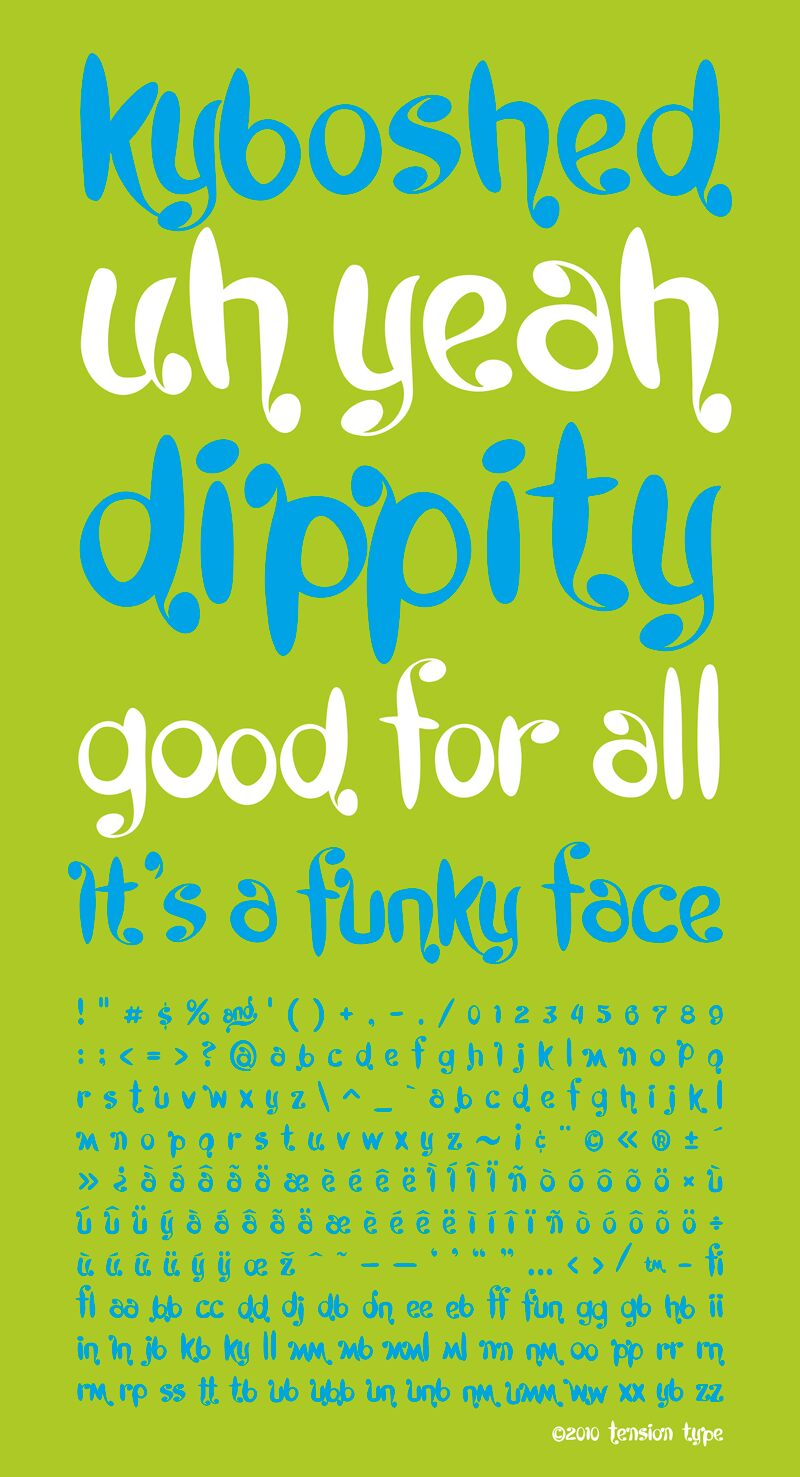
Kyboshed by Michael Tension is a free brush display font with exaggerated, ink-like forms. Its swelling curves, sharp tapered strokes, and bouncing proportions make the lettering feel improvised yet deliberate.
The lively brush shapes echo hand-drawn cartoons and suit illustrated posters, music packaging, and playful merchandise. They also fit entertainment graphics built around oddball creatures or comic artwork. In a logo, the letters can become part of an illustrated emblem rather than functioning as neutral text.